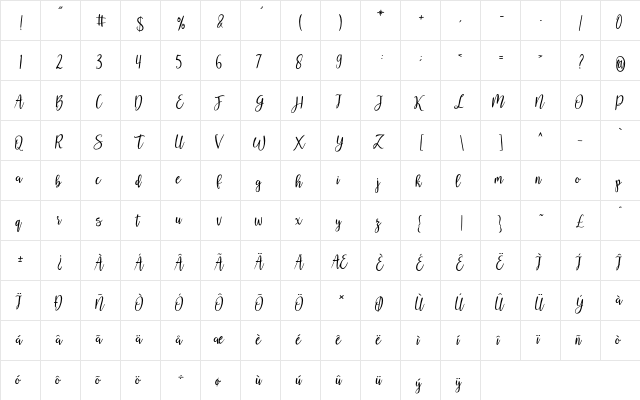
Reshonta Regular
Design Context for Reshonta Typeface
Reshonta is a composed and adaptable typeface that performs quietly and consistently across a wide range of design contexts.